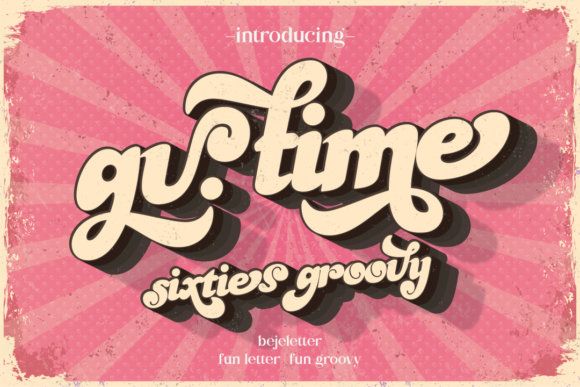
Gv. Time Font: Elevate Your Designs with a Vintage Flair
In the realm of typography, fonts play a pivotal role in shaping the visual identity of a brand or design project. Among the myriad of fonts available, Gv. Time Font stands out for its unique blend of vintage style and bold, handwritten flair. This comprehensive article delves into the characteristics, uses, and benefits of Gv. Time Font, exploring how it can add a stylish touch to your headlines and logotype projects.
Introduction to Gv. Time Font
Gv. Time is a vintage-styled and bold handwritten font, meticulously crafted to infuse your designs with a nostalgic character. Its strong, confident, and dynamic appearance makes it an ideal choice for designers looking to create impactful headlines and logotypes. The font’s unique aesthetic is reminiscent of classic typography, yet it possesses a modern edge that sets it apart from more traditional fonts.
Key Features of Gv. Time Font
- Vintage Style: Gv. Time Font boasts a distinctive vintage flair, perfect for designs that require a touch of nostalgia.
- Bold and Handwritten: The font’s bold and handwritten style lends a personal and dynamic feel to any project.
- High Versatility: Suitable for a wide range of design projects, from branding and logotypes to posters and digital media.
- Ease of Use: Designed to be user-friendly, Gv. Time Font can be easily integrated into various design software.
Applications of Gv. Time Font
The versatility of Gv. Time Font makes it suitable for numerous applications. Here are some of the most notable uses:
- Branding and Logotypes: The font’s unique style makes it perfect for creating memorable brand names and logotypes that stand out.
- Headlines and Titles: Gv. Time Font is designed to make headlines and titles pop, adding a stylish touch to any piece of content.
- Posters and Flyers: Its bold appearance makes it an excellent choice for posters and flyers that need to grab attention.
- Digital Media: Ideal for use in digital media, including social media graphics, website headers, and email newsletters.
Benefits of Using Gv. Time Font
Choosing Gv. Time Font for your design projects comes with several benefits:
- Unique Aesthetic: Offers a distinctive look that can set your designs apart from the competition.
- Emotional Connection: The vintage style can evoke a sense of nostalgia, creating an emotional connection with your audience.
- Versatility: Can be used across various platforms and design projects.
- Time-Saving: With its ready-to-use format, Gv. Time Font saves you time that would otherwise be spent on designing a custom font.
How to Use Gv. Time Font Effectively
To maximize the impact of Gv. Time Font, consider the following tips:
- Pair with Complementary Fonts: Use Gv. Time Font for headlines and pair it with simpler fonts for body text to create visual harmony.
- Experiment with Colors: The font’s bold style works well with a variety of colors, so don’t be afraid to experiment and find the perfect match for your design.
- Adjust Font Size: Depending on the design, adjust the font size to ensure Gv. Time Font serves as a focal point or complements other design elements.
- Maintain Readability: While the font is designed to be bold and attention-grabbing, ensure it remains readable across different devices and screen sizes.
Gv. Time Font is a powerful tool for designers looking to add a vintage touch to their projects. Its bold, handwritten style and nostalgic flair make it an excellent choice for a wide range of applications, from branding and logotypes to digital media. By understanding its features, applications, and how to use it effectively, designers can leverage Gv. Time Font to create visually stunning and impactful designs.
FAQs About Gv. Time Font
- What is Gv. Time Font? Gv. Time Font is a vintage-styled and bold handwritten font designed for use in headlines and logotype projects.
- What makes Gv. Time Font unique? Its unique blend of vintage style and bold, handwritten appearance sets it apart from other fonts.